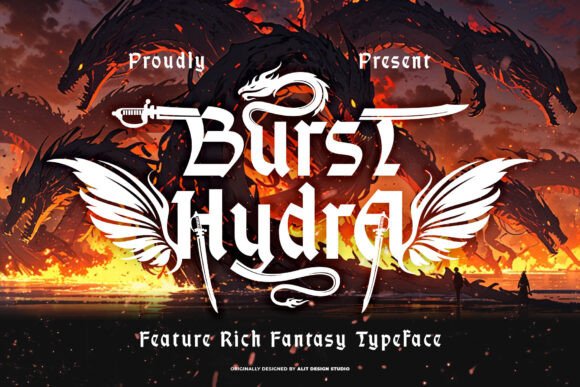
Brust Hydra Font – Feature-Rich Fantasy Typeface
In the realm of typography, few fonts manage to capture the essence of myth and legend as effectively as Brust Hydra. This bold and heroic typeface is specifically designed with an epic fantasy theme in mind, making it an ideal choice for titles, logos, posters, game UI, and fantasy-themed branding. Brust Hydra seamlessly blends semi-blackletter styling with serif elegance, delivering a commanding presence that is hard to ignore.
Inspiration from Myth and Legend
Brust Hydra draws its inspiration from the valor of Greek heroes and the fearsome strength of mythical beasts like the Hydra. The font’s design is deeply rooted in the mythology of ancient Greece, where heroes and monsters often clashed in epic battles. Each letterform in Brust Hydra is carefully crafted to evoke the armor, swords, and wings of warriors and legendary creatures, giving it a unique and powerful appearance.
Design Elements and Features
One of the standout features of Brust Hydra is its use of decorative elements, such as sabers, flame motifs, and dragon insignias. These elements enhance the font’s visual storytelling, making it a centerpiece for any design that demands strength and sophistication. The font’s sharp edges and refined curves give it a sense of precision and elegance, making it perfect for a wide range of applications.
Semi-Blackletter Styling
Brust Hydra’s semi-blackletter styling is one of its most distinctive features. This style is characterized by its bold, dramatic lines and ornate decorations. The font’s blackletter roots give it a sense of history and tradition, while its refined curves and elegant lines make it feel modern and sophisticated.
Serif Elegance
In addition to its semi-blackletter styling, Brust Hydra also features serif elegance. The font’s serifs are carefully crafted to add a touch of sophistication and refinement to its overall appearance. This makes Brust Hydra an excellent choice for designs that require a sense of luxury and elegance.
Use Cases for Brust Hydra Font
Brust Hydra is a versatile font that can be used in a wide range of applications. Here are some examples of how you can use this powerful typeface:
- Titles and Headings: Brust Hydra is perfect for titles and headings that require a sense of drama and elegance. Its bold lines and ornate decorations make it an excellent choice for movie titles, book covers, and other applications where you want to make a statement.
- Logos and Branding: The font’s unique blend of semi-blackletter styling and serif elegance makes it an excellent choice for logos and branding. Brust Hydra can help you create a memorable and distinctive brand identity that stands out from the crowd.
- Posters and Flyers: Brust Hydra’s bold and eye-catching design makes it perfect for posters and flyers. Whether you’re promoting a movie, a concert, or a product, this font can help you grab attention and make a lasting impression.
- Game UI: The font’s clear and legible design makes it an excellent choice for game UI. Brust Hydra can help you create a user interface that is both functional and visually appealing.
Why Choose Brust Hydra Font?
There are many fonts available that claim to offer a sense of drama and elegance, but Brust Hydra stands out from the crowd. Here are some reasons why you should choose Brust Hydra for your next project:
- Unique Design: Brust Hydra’s unique blend of semi-blackletter styling and serif elegance makes it a standout font that can help you create a distinctive brand identity.
- High-Quality Design: The font is carefully crafted with attention to detail, ensuring that it looks great in any application.
- Versatile: Brust Hydra can be used in a wide range of applications, from titles and headings to logos and branding.
- Epic Fantasy Theme: The font’s epic fantasy theme makes it perfect for designs that require a sense of drama and adventure.
In conclusion, Brust Hydra is a powerful and elegant typeface that can help you unleash ancient power in your designs. Its unique blend of semi-blackletter styling and serif elegance makes it perfect for titles, logos, posters, game UI, and fantasy-themed branding. With its decorative elements, sharp edges, and refined curves, Brust Hydra is a font that can help you create a lasting impression. So why wait? Choose Brust Hydra for your next project and let your typography roar with mythic force.